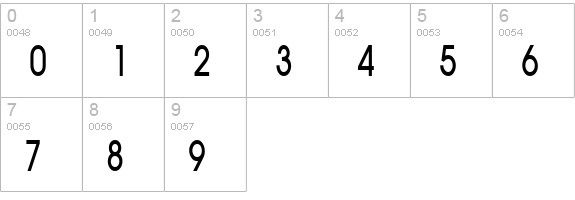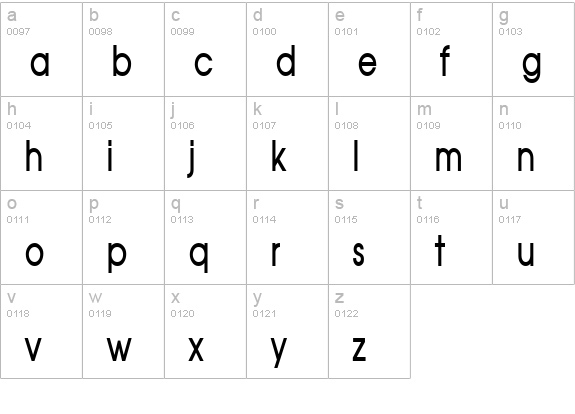
Atilla Thin Bold Font Details
Atilla Thin Bold is a delicate, low-contrast variant in the Atilla typeface family \xE2\x80\x94 well suited to fashion editorial, minimal branding, and high-contrast display.
Atilla Thin Bold font is a modern and sleek typeface that exudes elegance and sophistication. Its clean lines and bold strokes make it perfect for a variety of design projects, from branding to editorial layouts. The striking contrast between the thin and bold weights adds visual interest and makes text stand out on the page. This versatile font is ideal for creating eye-catching headlines, logos, posters, and more. Its timeless appeal and contemporary flair make it a must-have in any designer's toolkit. Whether you're working on a sleek minimalist design or a bold statement piece, Atilla Thin Bold font has got you covered. And the best part? Atilla Thin Bold font is available for free download at FontsMarket.com. So go ahead and elevate your designs with this stunning typeface today!